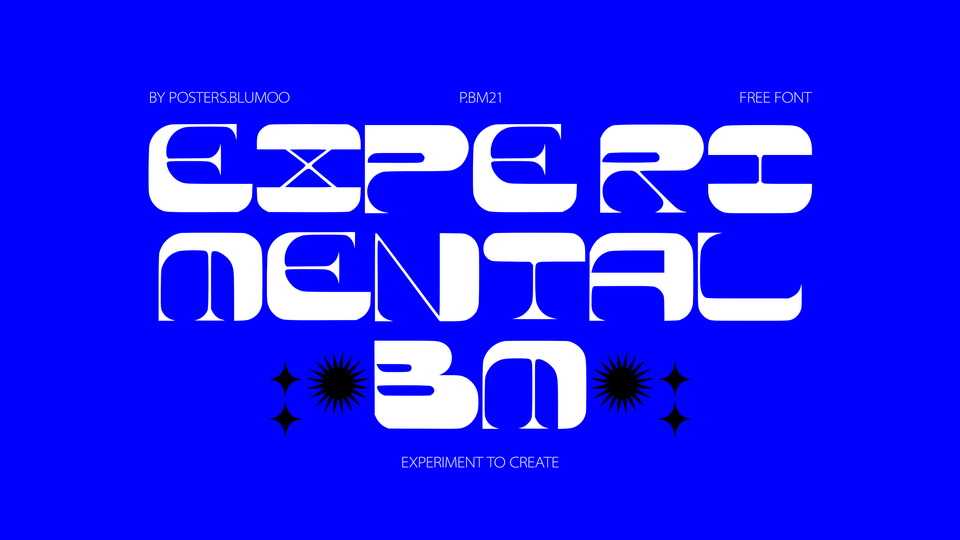
Download Experimental BM font, a serif typeface inspired by the Japanese acid and chromatic style. Experimental BM is a font that combines with many graphic styles which makes it very vesatile.
Designer: posters.blumoo